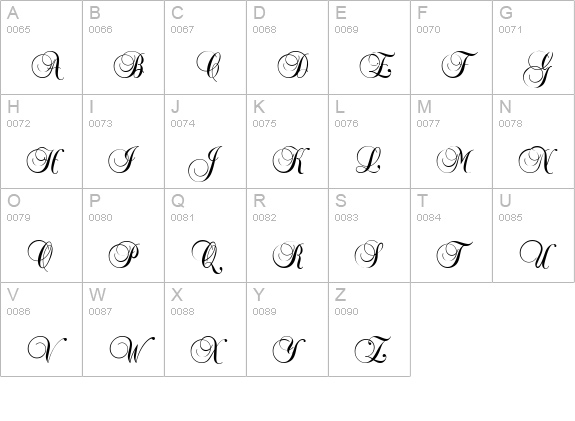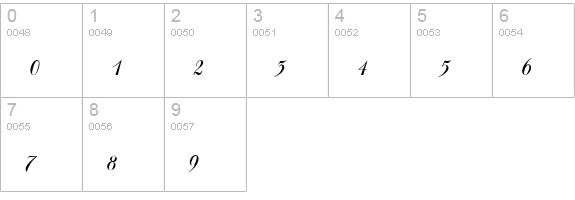
Ballad-Script-Regular Font Details
Ballad-Script-Regular is the standard, neutral variant in the Ballad typeface family \xE2\x80\x94 well suited to general body text, paragraphs, and standard typographic work.
Ballad-Script-Regular is a beautiful and elegant font that exudes sophistication and charm. Its delicate curves and flowing lines make it perfect for adding a touch of romance to any design project. Whether you're creating wedding invitations, love letters, or heartfelt messages, this font will help convey your emotions in a graceful manner. The best part is that Ballad-Script-Regular is completely free to use! You can easily download it from FontsMarket.com and start incorporating its timeless beauty into your work. With its versatility and classic appeal, this font is sure to become a favorite in your collection. Let Ballad-Script-Regular enhance your designs and bring a sense of elegance to your projects today.